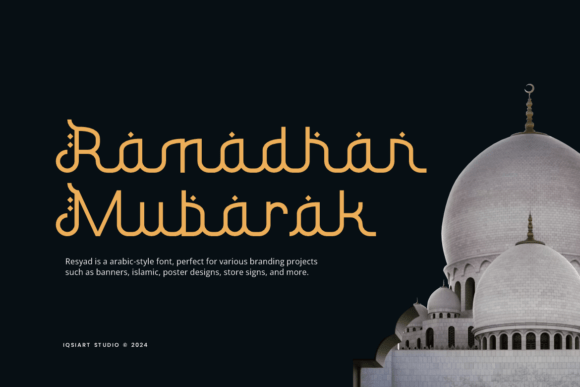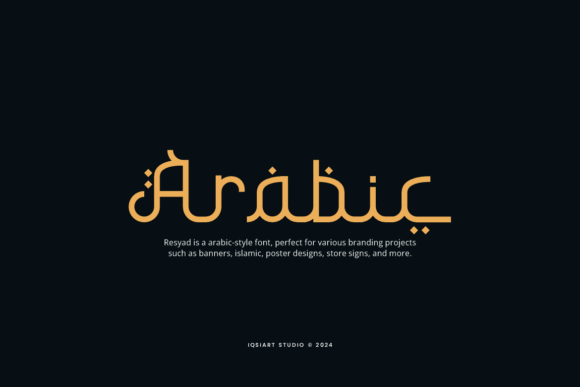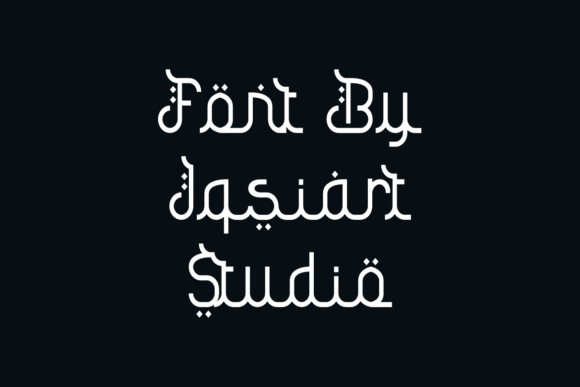
Introduction to Resyad Font
Resyad Font is an arabic and authentic decorative typeface that suits a variety of design needs.
Whether you’re looking for fonts for Instagram or calligraphy scripts for DIY projects, this font will turn any creative idea into a true piece of art .
Key Features of Resyad Font
Why Choose Resyad Font?
Resyad Font offers exceptional quality and versatility, making it a valuable addition to your design toolkit. Whether you’re creating for personal projects or commercial use, Resyad Font delivers professional results.